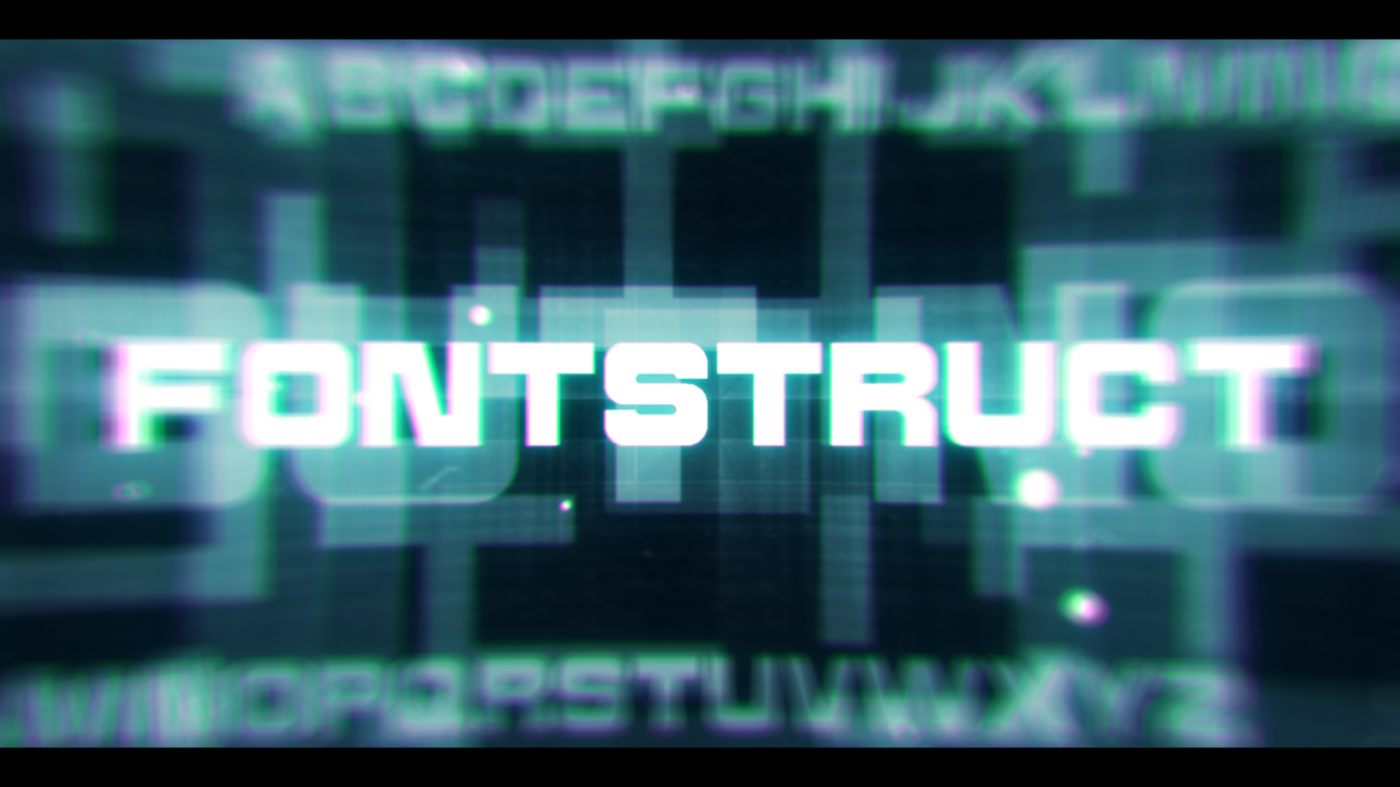
• ... even though it is.
A unicase fontstruction, even though I'm considering the lowercase alphabet, and planning to add more characters/symbols.
Introducing my first fontstruction using filters, composites, nudging, and other Fontstruct features I never heard of before.
Inspiration came from a lot of Fontstruct and GD creators and other existent fonts (like Eurostile) made outside of Fontstruct.
I feel like some of them need work, (specifically the digit four, letters M, W, L, X, etc) feel free to suggest better ones in the comments if you like. The download will be locked until I fix and/or improve the kerning or characters.
Here's a sample.
very nice bold and clean font, i like it. remainds eurostyle
Nice try. I agree with you about these glyphs needing more work (4, M, W, L, X, etc.).
@elmoyenique: Update on the font. I may have fixed the V, W and X, and the 4. I also fixed the J to be more eurostyle.
I am also still stuck with the letter L. HOW DO I MESS THAT UP???
@elmo the [L] seems fine to me
@car886980 you could do  ⠧⡧
+ [R] is too wide in the bowl (the semicircle at the top)
@Tv boy Aero (digitalio-2): I did manage to create a 4 that was WAY better. Also, I moved down the bar where the R is, and that then raised a problem with the letter P, so I fixed that too.
Nicely done heavy sans serif. The V looks a tad narrow.
q don't look right